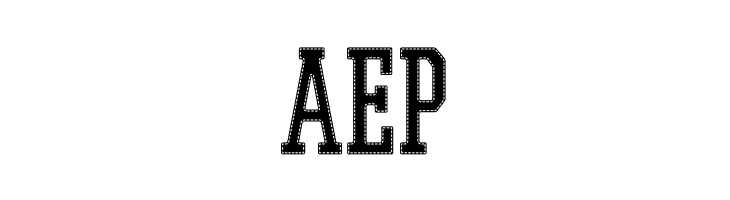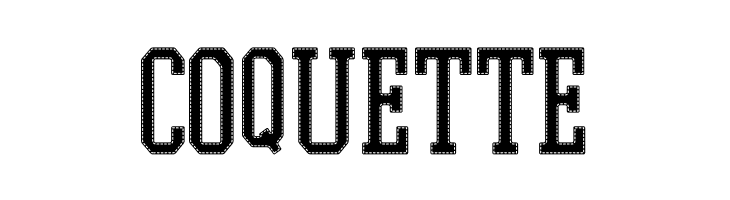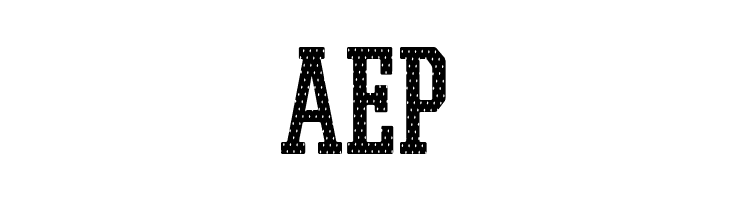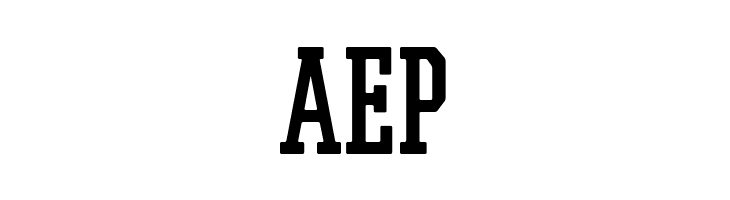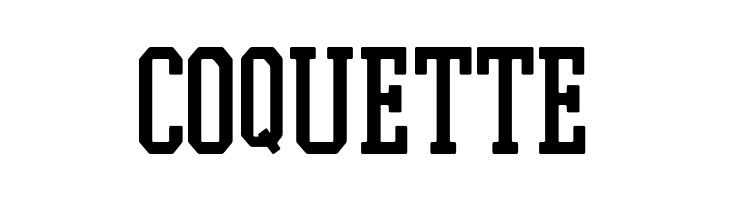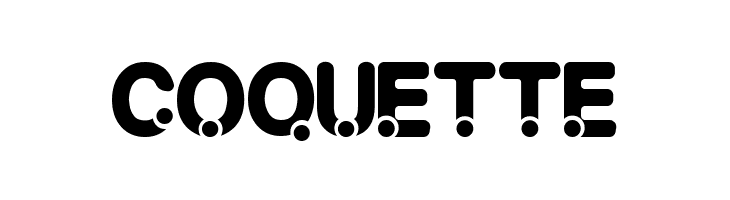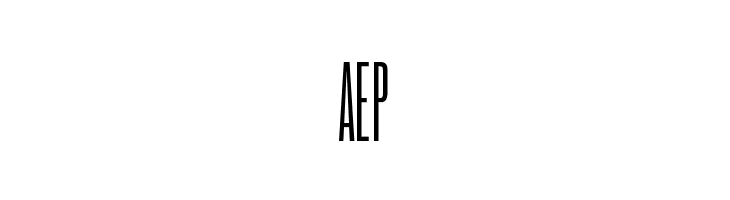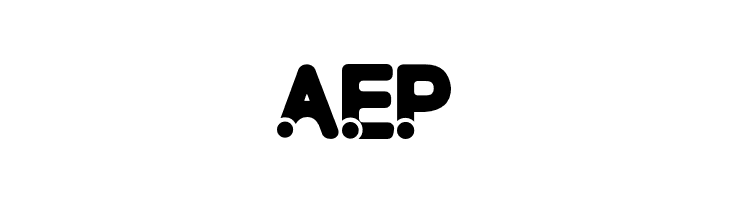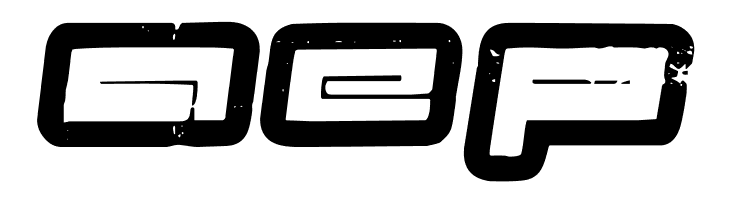
A bold, distressed font with a grunge texture and rugged appearance.
A bold, distressed font with a grunge aesthetic, perfect for impactful designs.
A bold, distressed font with a grunge texture and rugged appearance.
A bold, geometric font with a modern and decorative style.
A bold, modern font with a distressed, industrial look.
A modern, geometric font with consistent stroke widths and rounded corners.
A bold, geometric font with rounded edges and a modern style.
A modern, geometric font with a condensed, uniform design and rounded edges.
A modern, condensed italic font with sleek, angular characters.
A modern, geometric font with bold, rounded rectangular characters and consistent stroke width.
A modern, expanded, and italicized font with a sleek, futuristic design.
A modern, italic font with geometric shapes and a futuristic feel.
A modern, geometric outline font with a clean and structured design.
A modern, italicized outline font with a futuristic and geometric style.
A futuristic, geometric font with a blocky, modular design.
A futuristic italic font with angular, streamlined letterforms.
A clean, modern sans-serif font with uniform strokes and geometric influences.
A playful, handwritten-style font with bold, rounded characters.
A bold, playful font with circular accents and rounded shapes for a modern look.
A bold, playful font with unique dot embellishments for a modern, decorative look.
An elegant script font with flowing, interconnected letters and ornate uppercase characters.
A bold Art Deco font with geometric shapes and strong lines, exuding vintage elegance.
A tall, narrow, and modern font with high contrast and elegant design.
A tall, narrow, and modern font with an elegant style.
A bold, hand-drawn font with a rugged and artistic style.
A bold, athletic font with a unique mesh pattern, ideal for sports themes.
A bold, athletic font with a vintage sports jersey style.
A bold, athletic font with a mesh-like pattern, ideal for sports-themed designs.